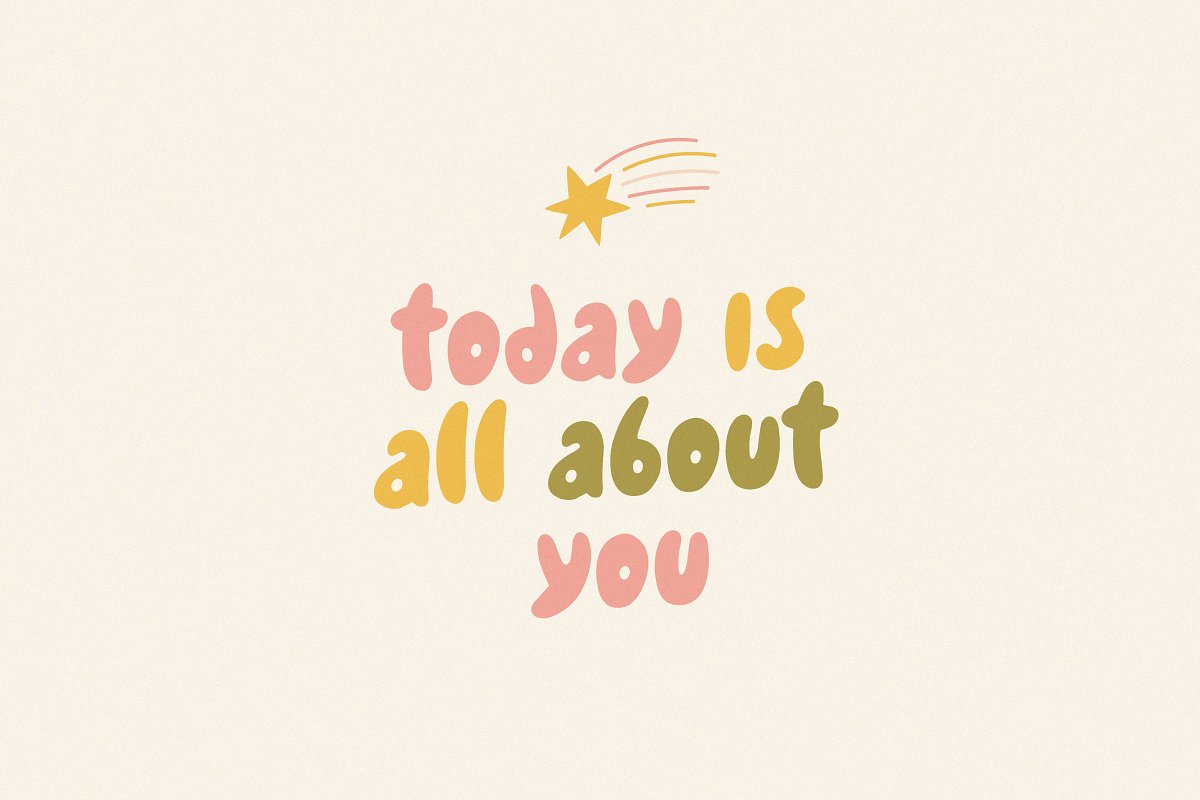
About the Cats party Playfull Font
Cats party – cute handwritten font, ready to make your design looks great and fun! 🙂 Use for quotes, greeting cards, invitations, posters, business cards, presentations and more!You will get:CatsParty, otfCatsParty-Glare, otf49 elements (AI, EPS, PNG with transparent background)Have fun creating! Julia